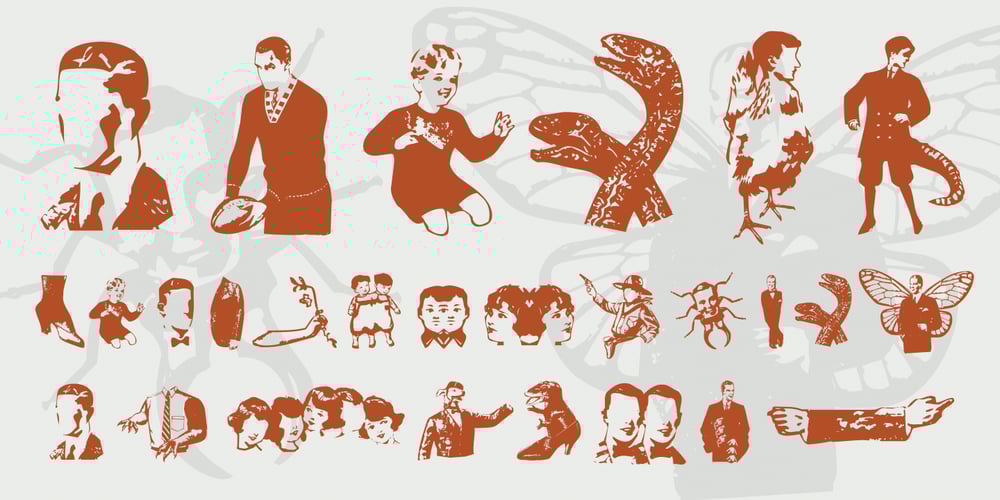
CA Subbacultcha Font Family was designed by Joe Avella and published by Cape Arcona Type Foundry. CA Subbacultcha contains 1 styles and family package options. A Dingbat-font that is different from the others. Illustrations from a world of friendly nightmares, dreams you like to end and fears you laugh at by day.